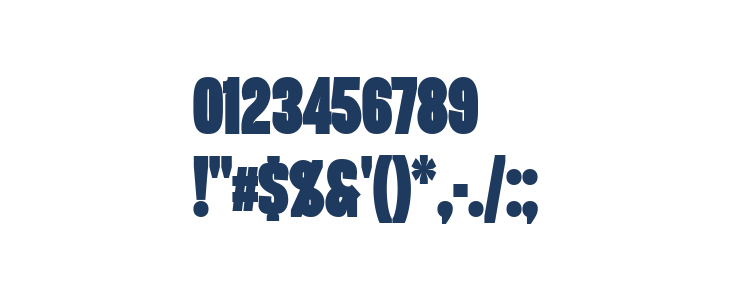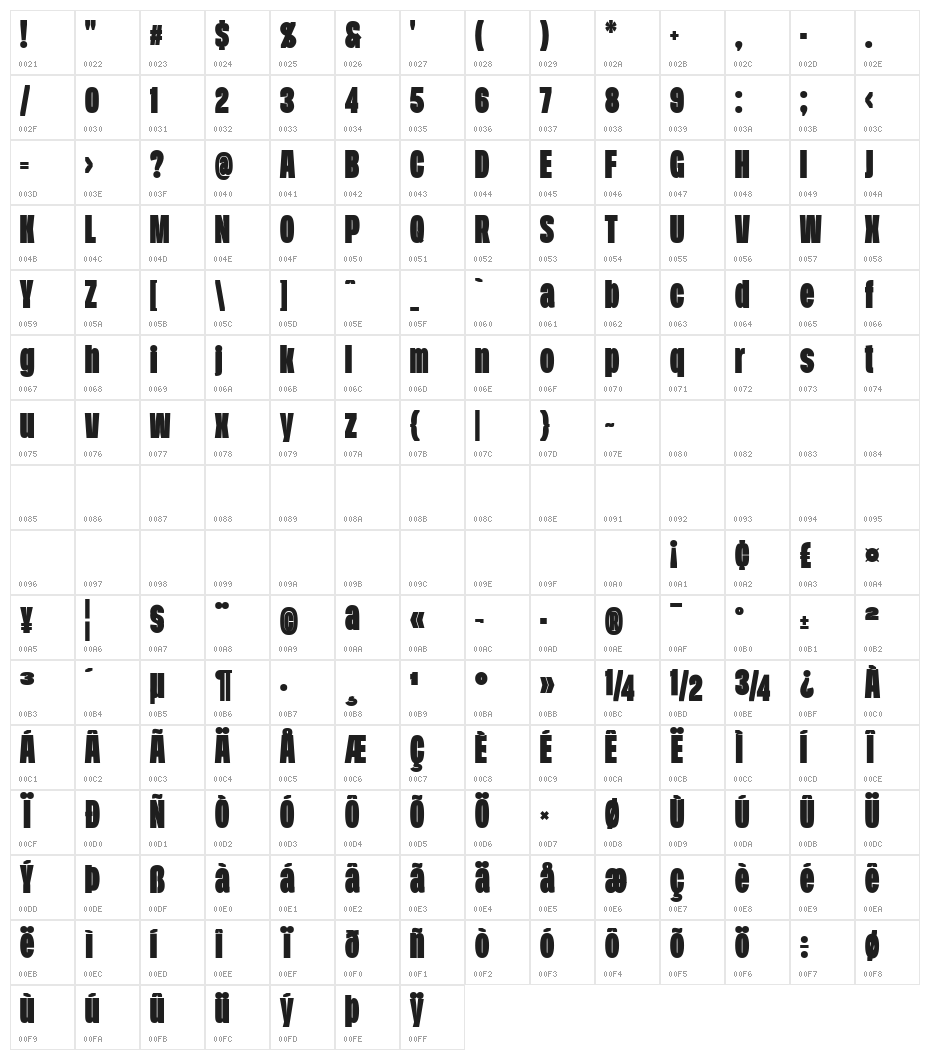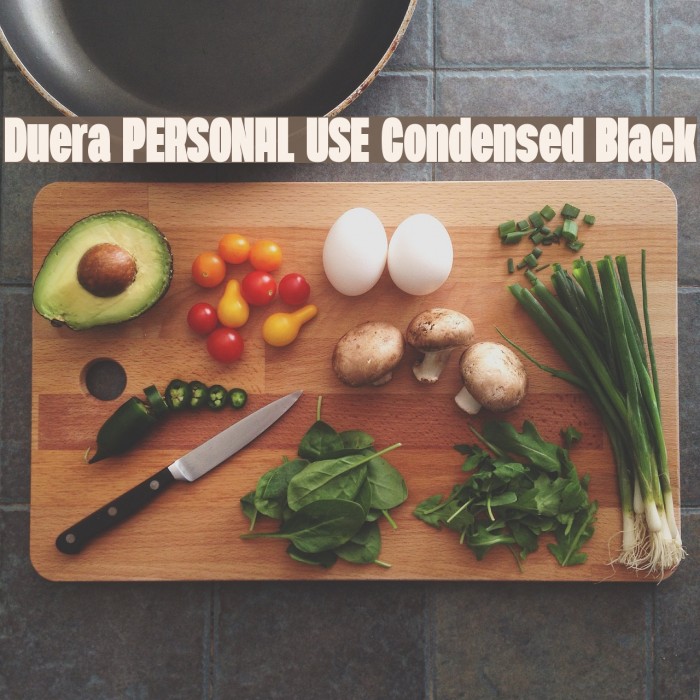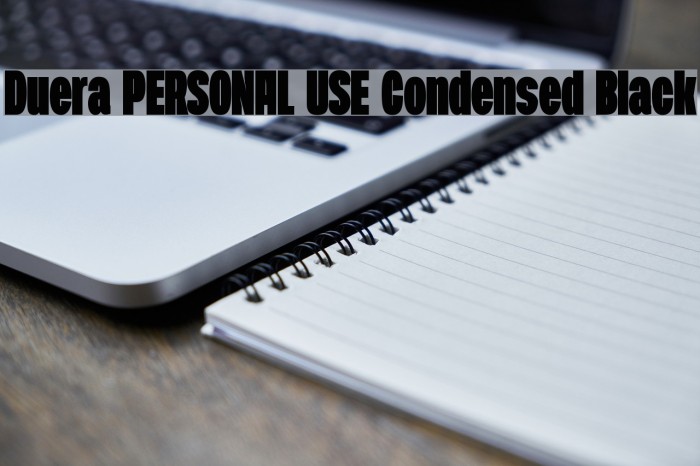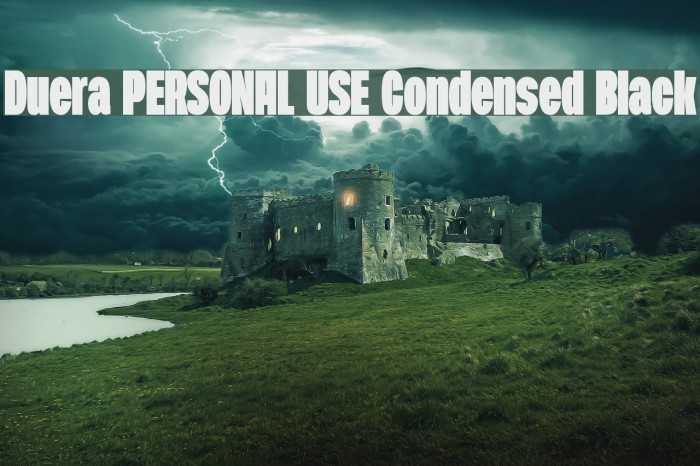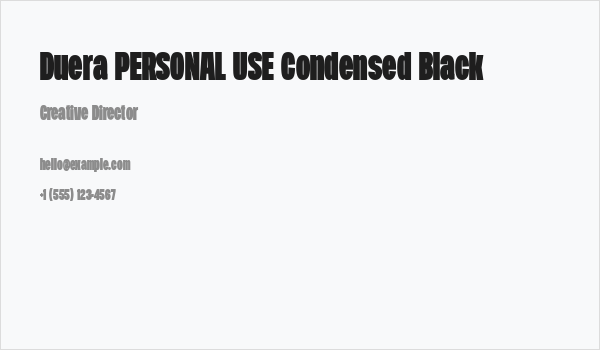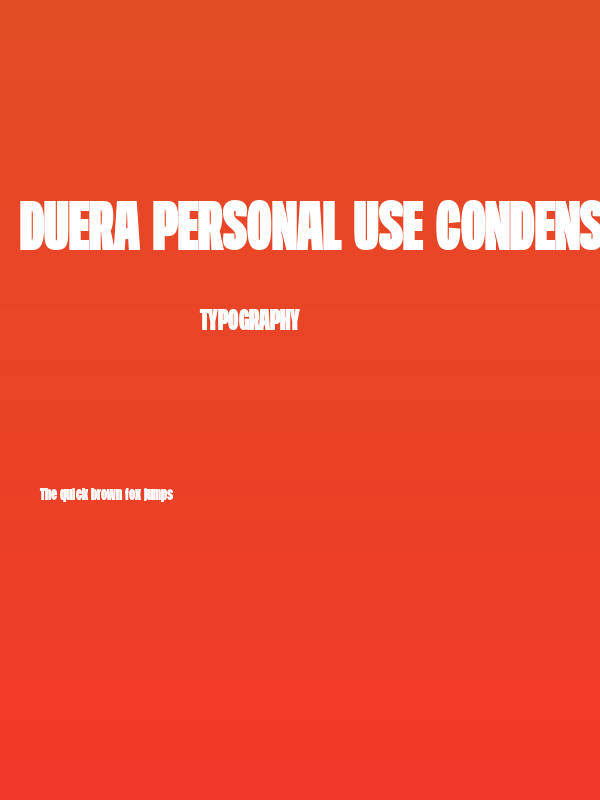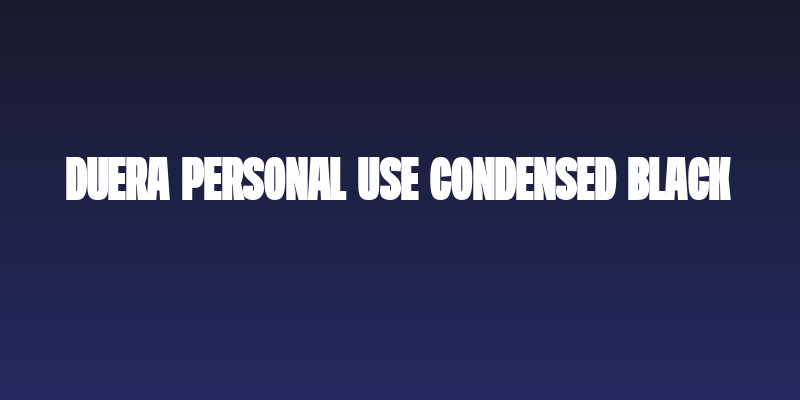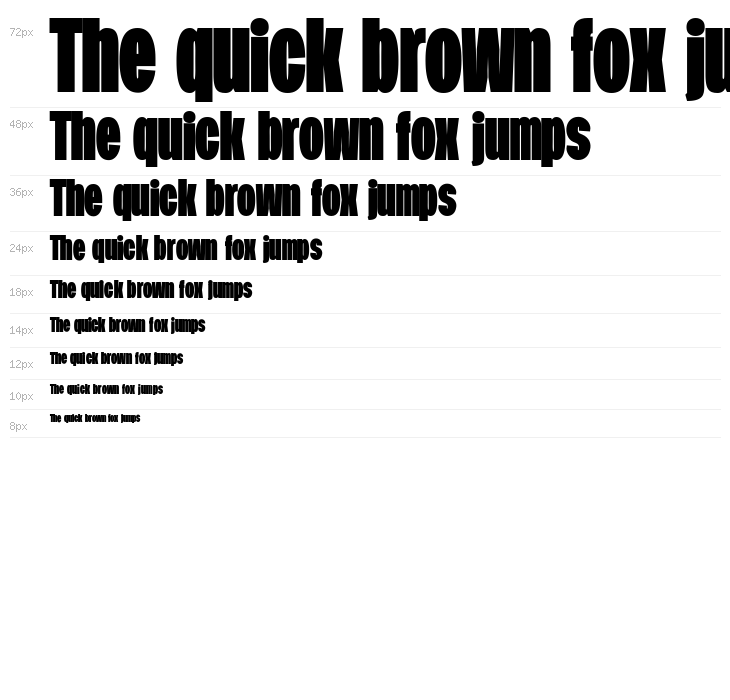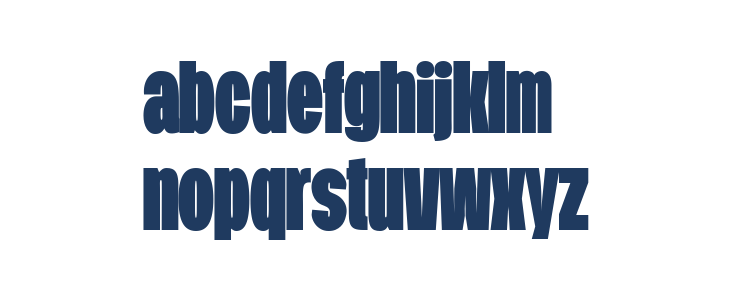
Duera PERSONAL USE Condensed Black Font
Duera PERSONAL USE Condensed Black Description
This font is a bold, condensed typeface with a strong presence. The uppercase and lowercase letters are designed with a heavy weight, making them ideal for impactful headlines and titles. The characters are tightly spaced, enhancing the condensed appearance. The numbers and special characters maintain the same bold and condensed style, ensuring consistency across all text elements. This font's thick strokes and minimal contrast give it a modern and assertive look, suitable for projects that require a strong visual statement.
| Proposed Projects | Ideal for posters, headlines, branding materials, and any design requiring a bold statement. |